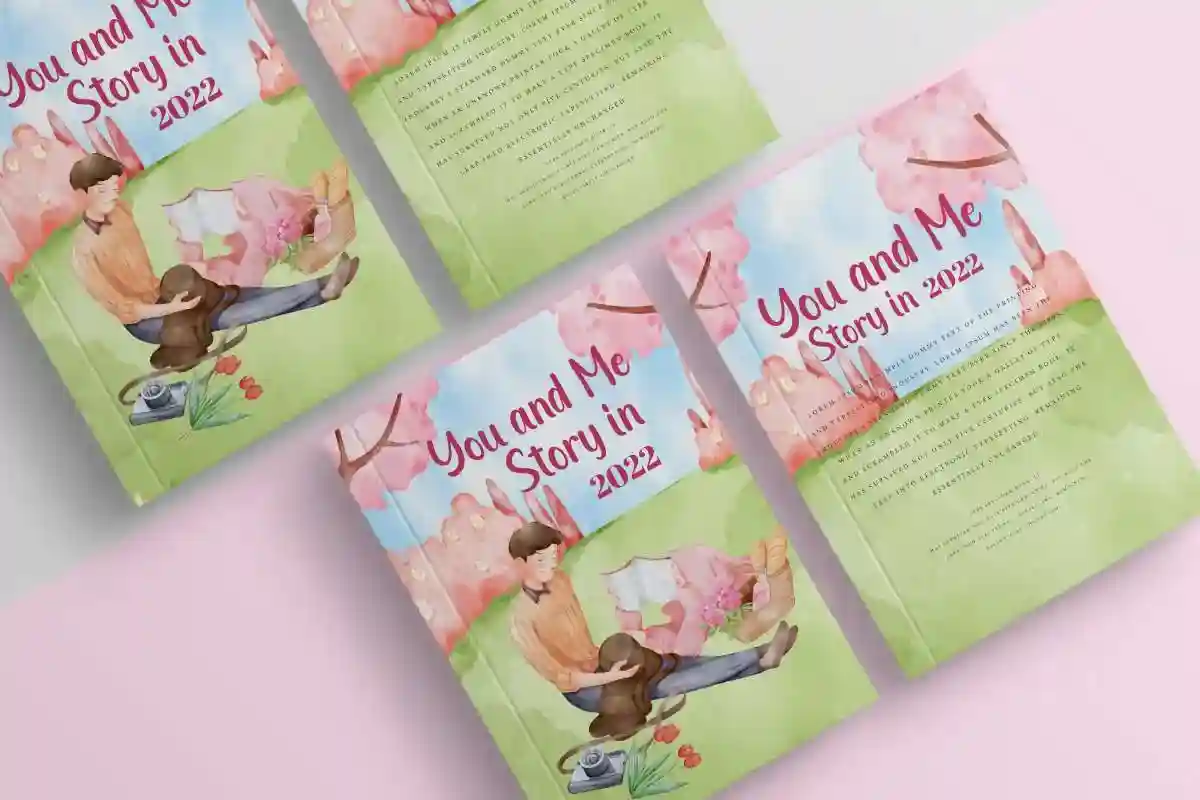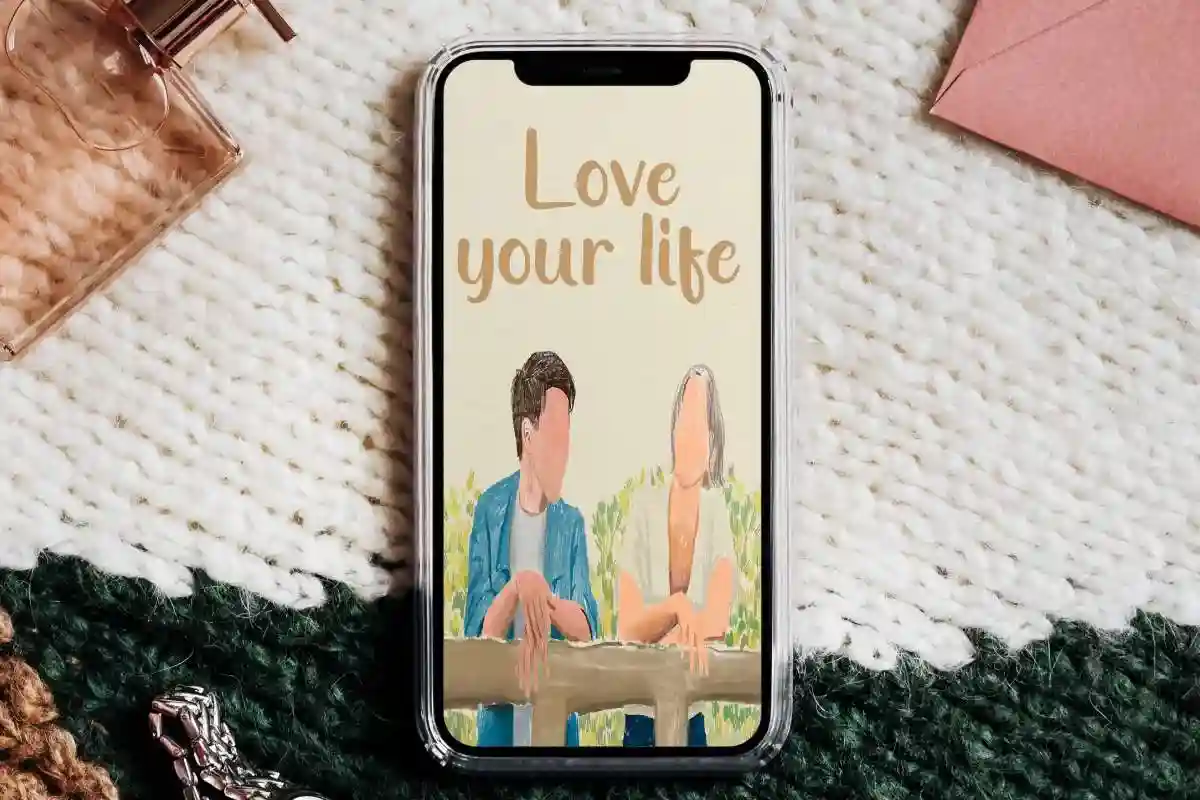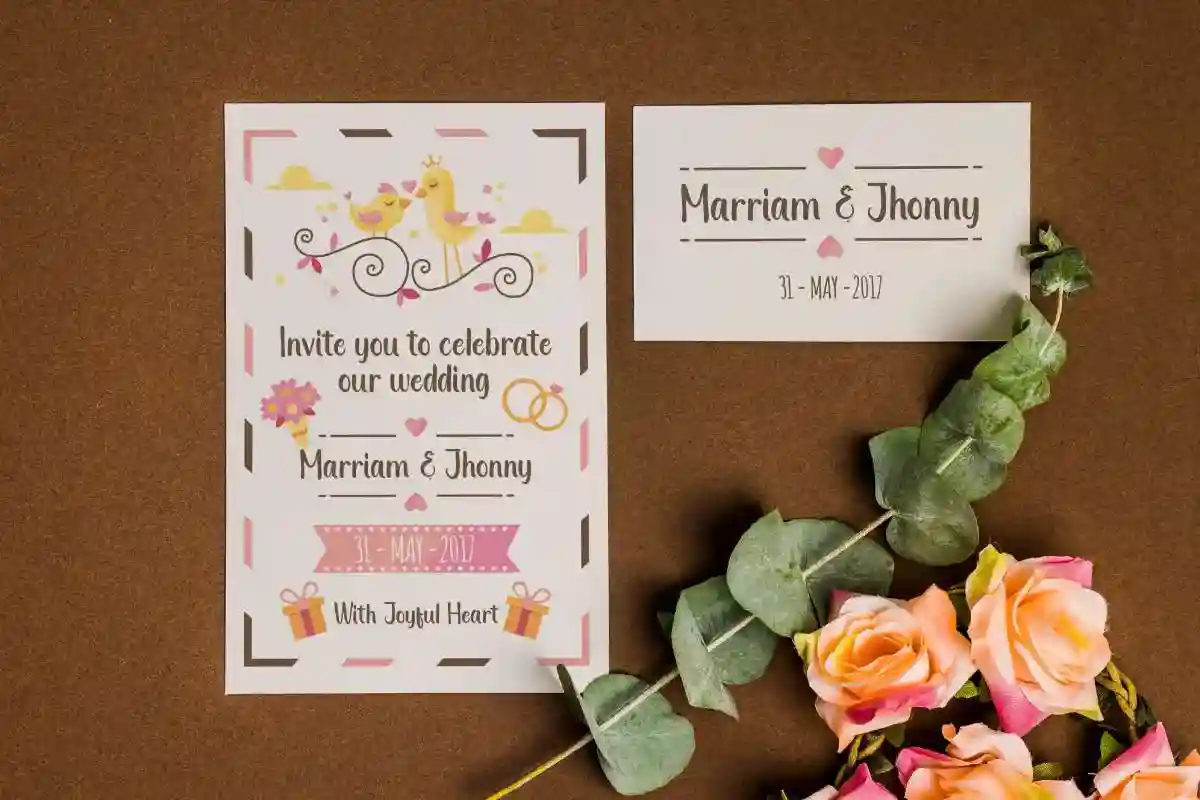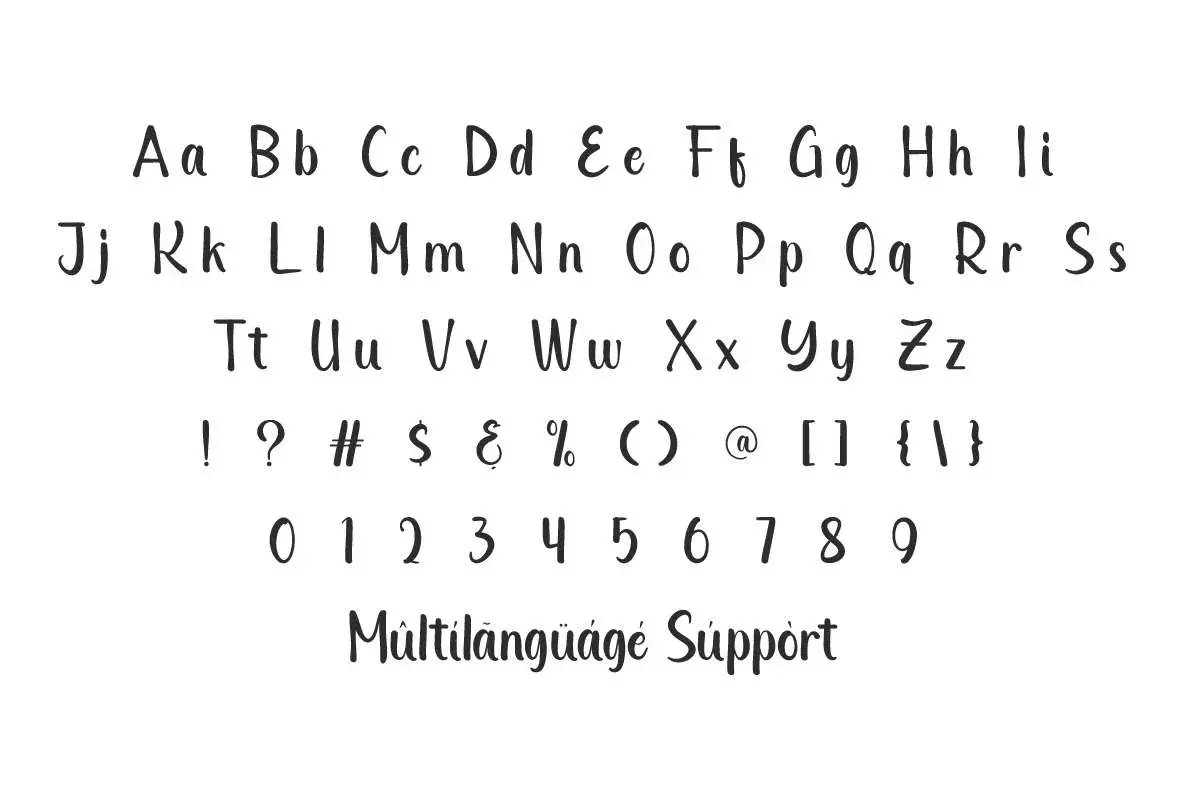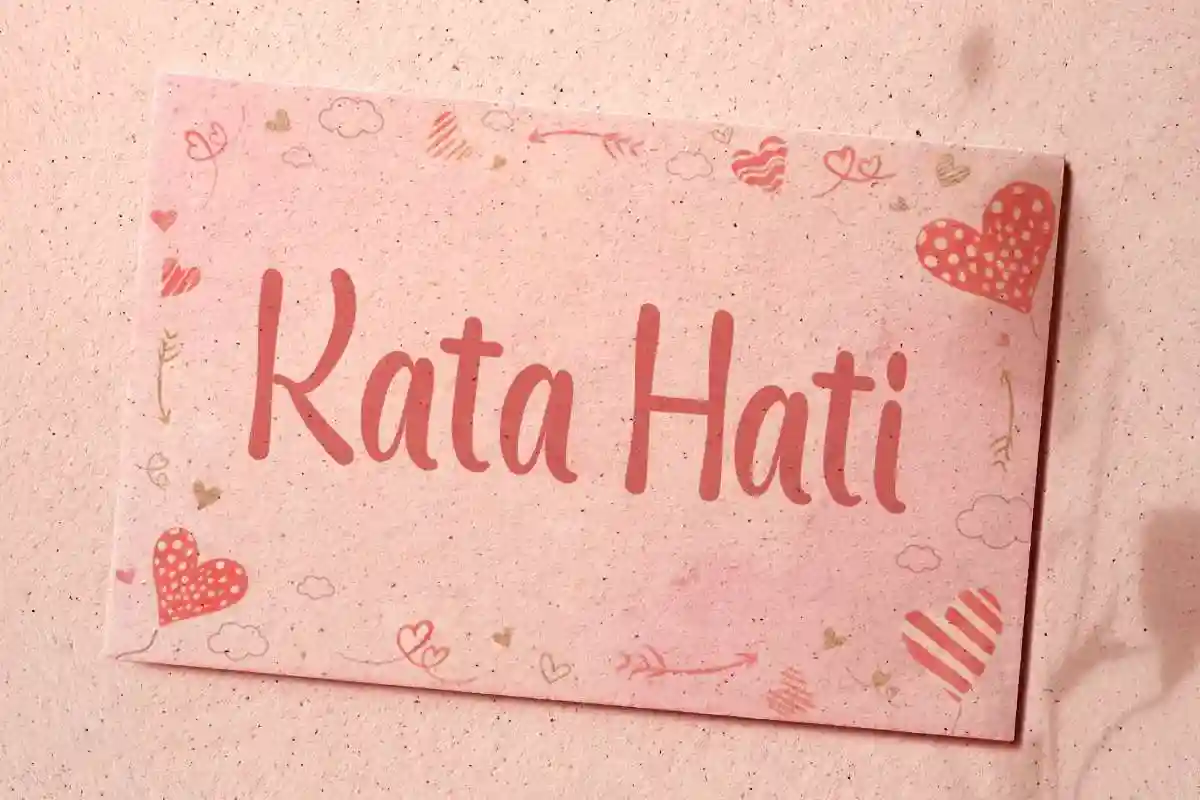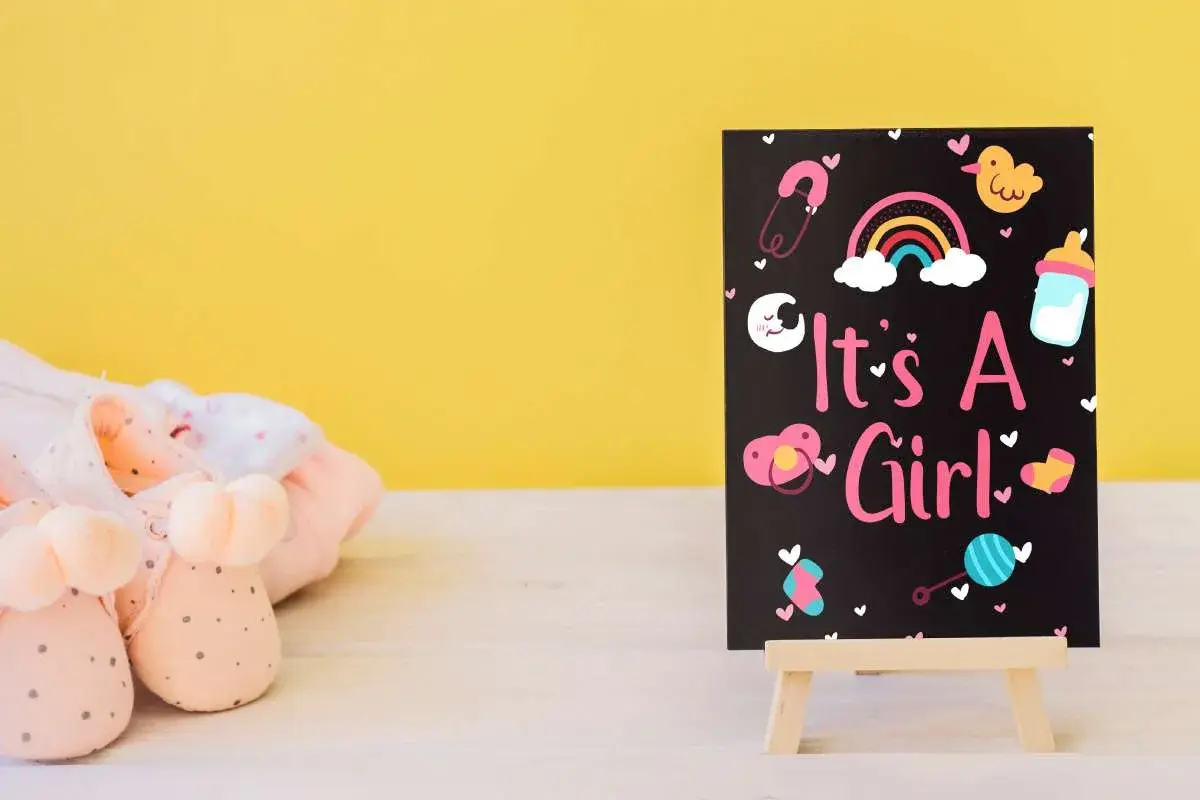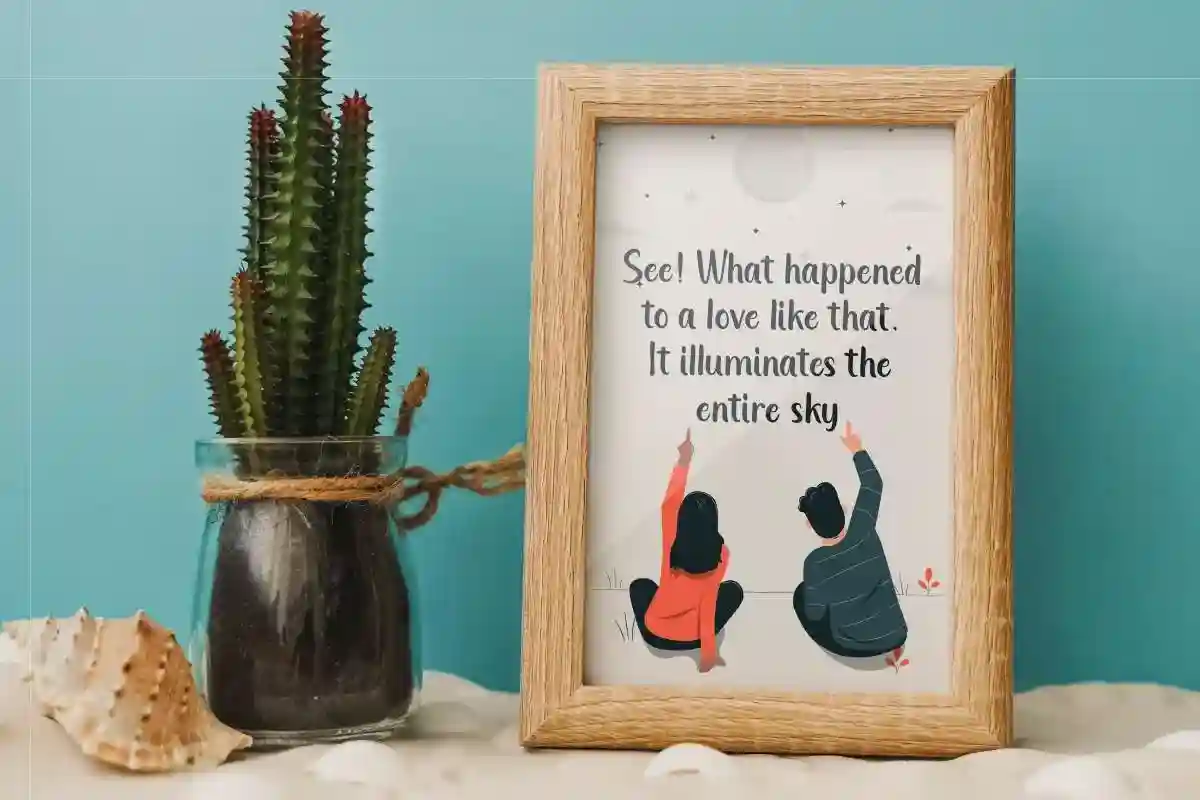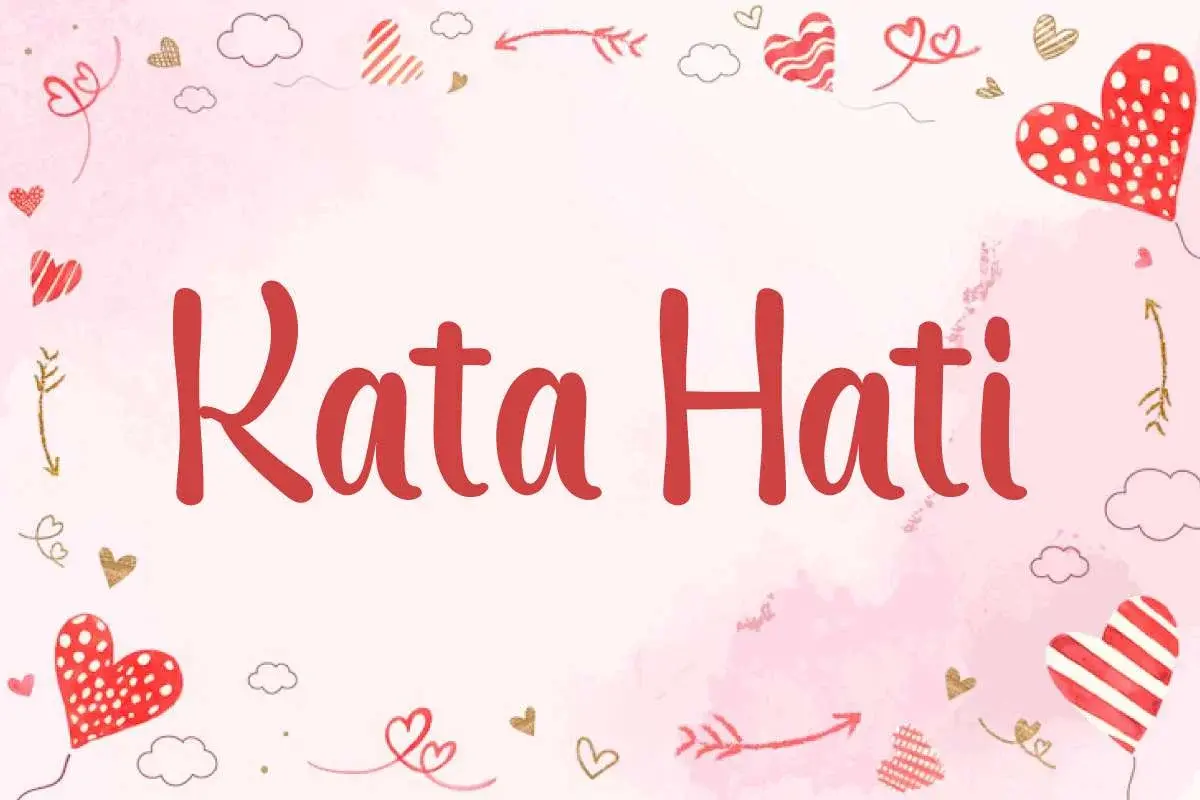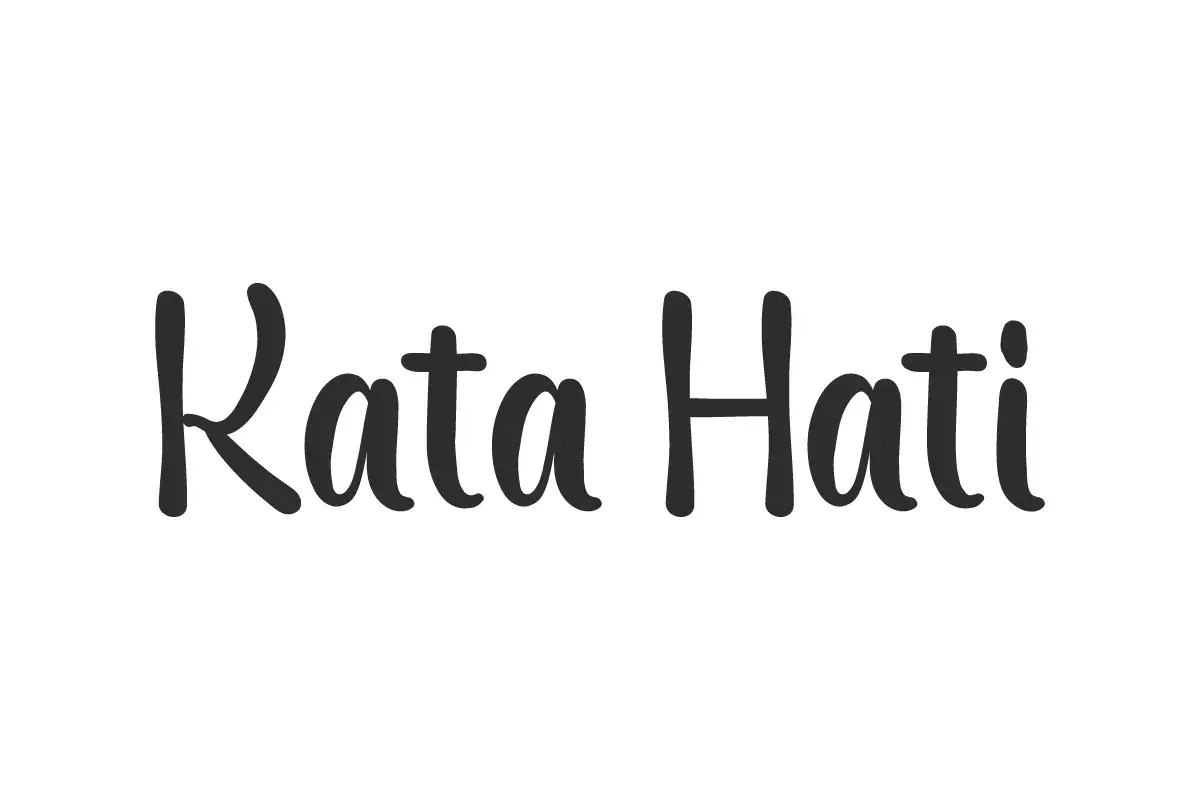
Kata Hati Font
Kata Hati Font is a gorgeous playful display font with a love and friendship theme. It’s versatile for anything that requires a gentle writing style that follows your heart!
Kata Hati Font is a gorgeous playful display font with a love and friendship theme. This will bring attention to your business in different ways, such as advertisement, author, bakery, café, cinema, clothing brand, event planner, e.g. baby shower etc., handicrafts, interior design, movie, photography, printing, publishing, restaurant, retail, social media content, wedding, writer, and many more!
Kata Hati Font includes full set of Uppercase and Lowercase Basic Characters, Number, Punctuation, and Symbol. This provides a special place for your billboard, brochure, business card, cover, flyer, headline, invitation, label design, logo, menu, mobile app, poster, quote, screen print, stationery, sticker, title, watermark, etc.